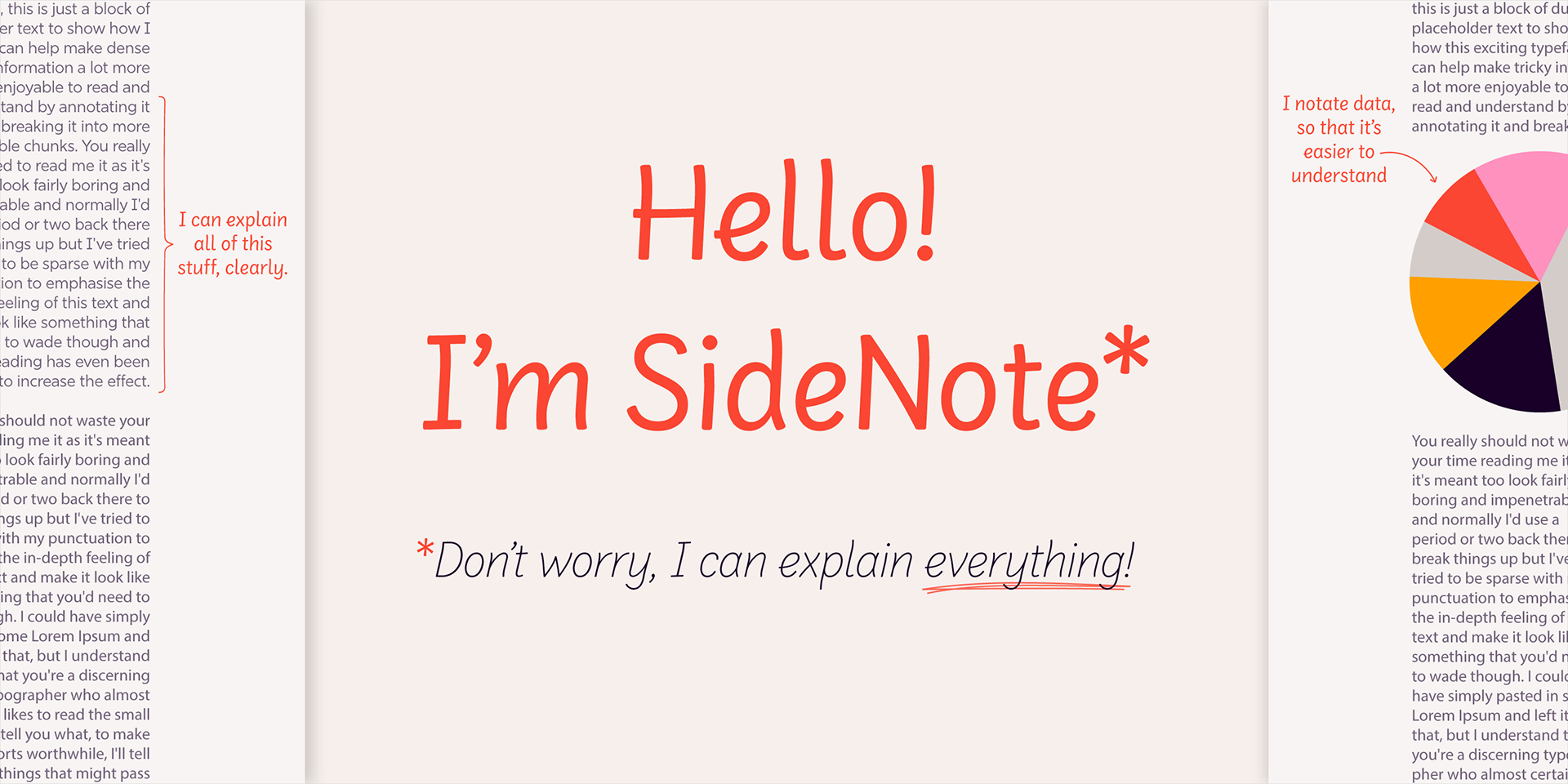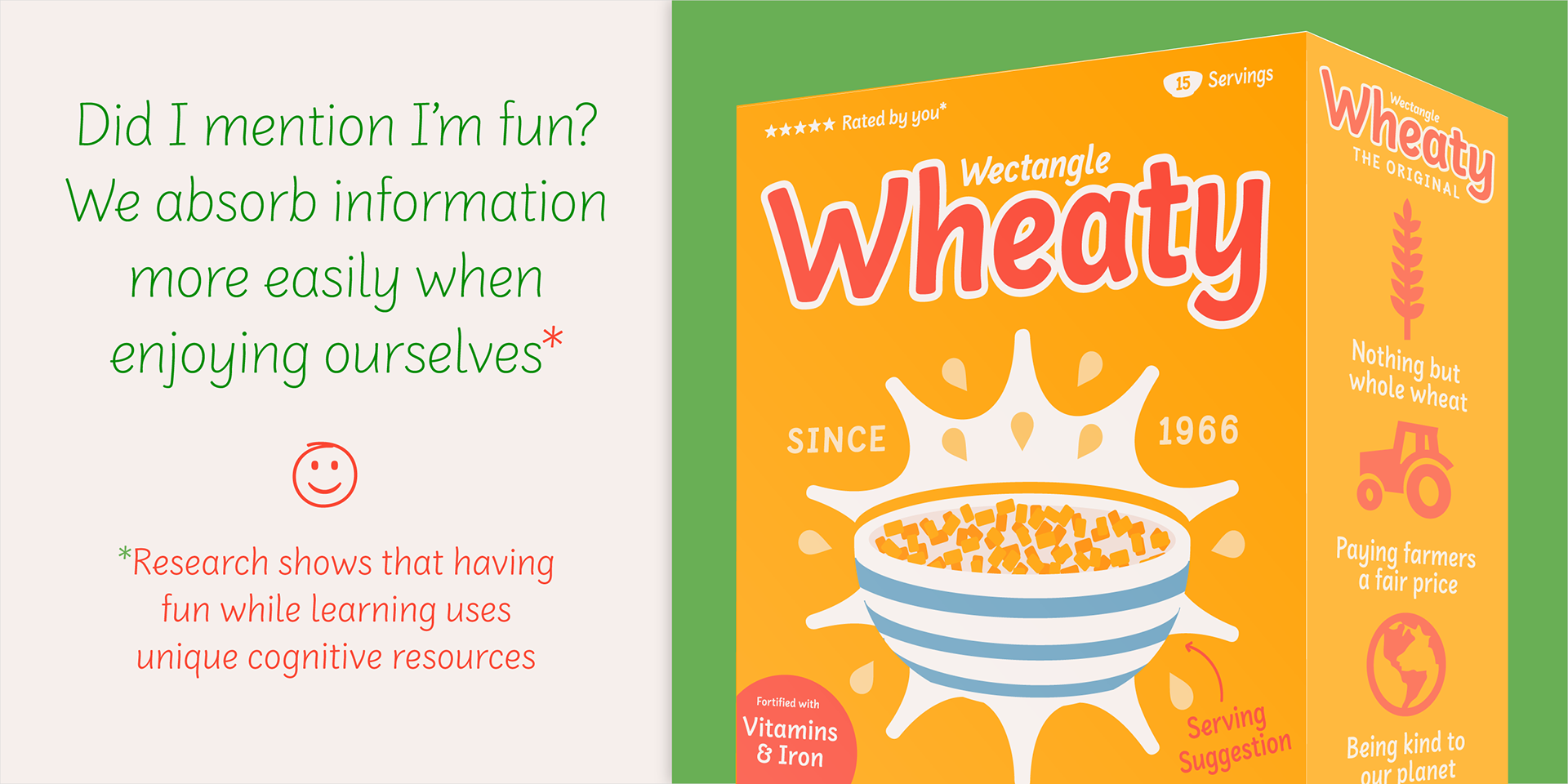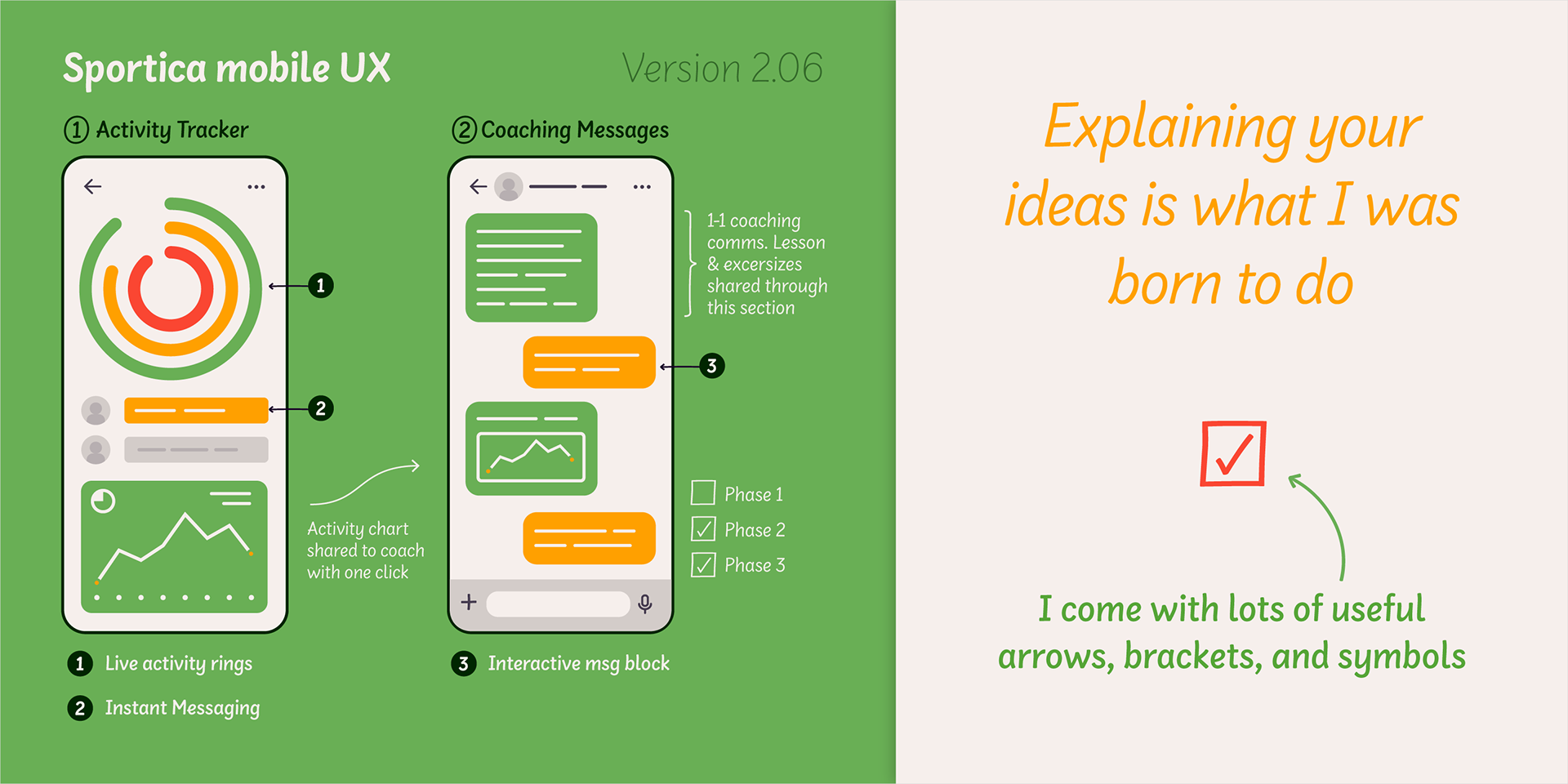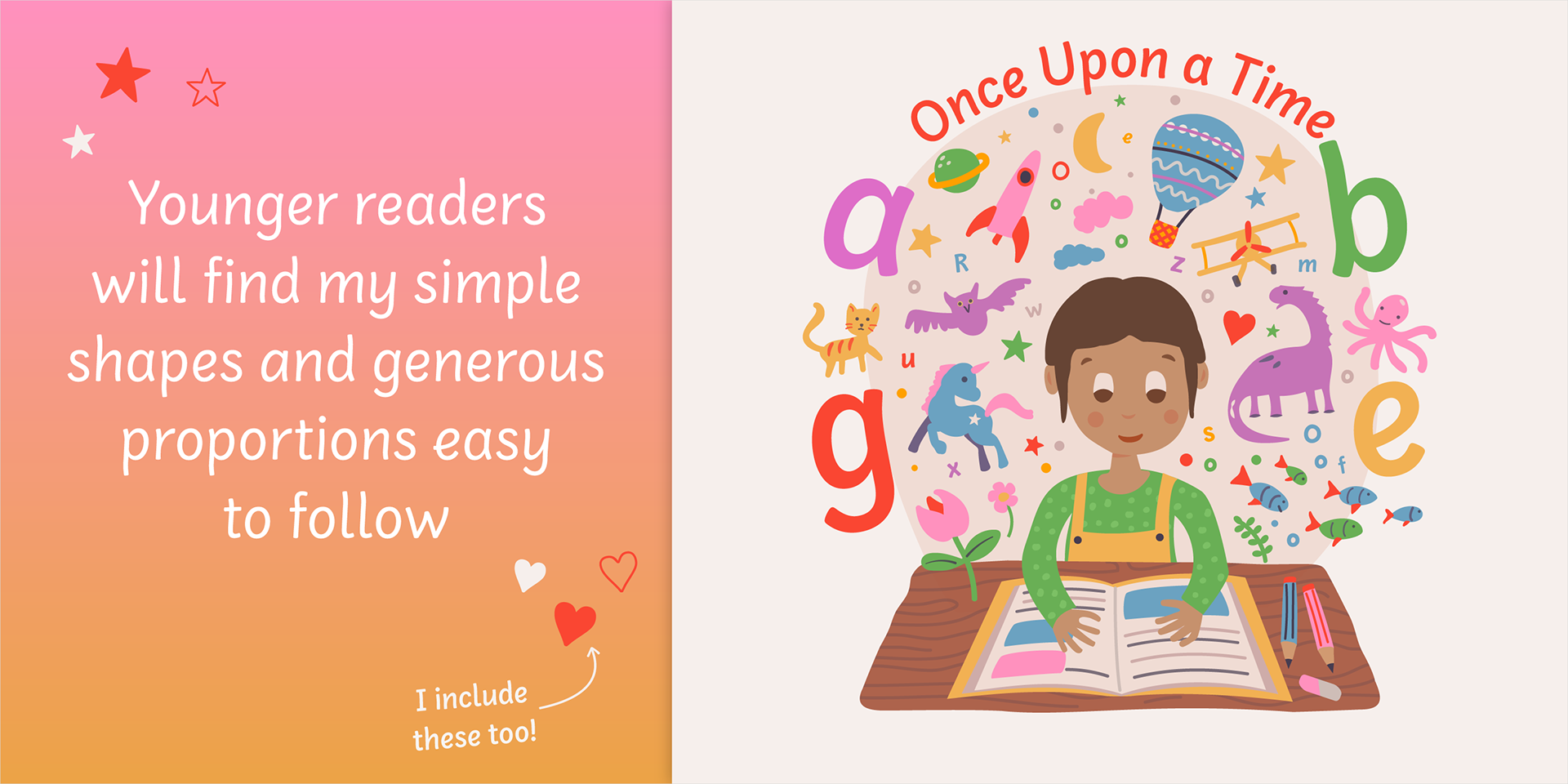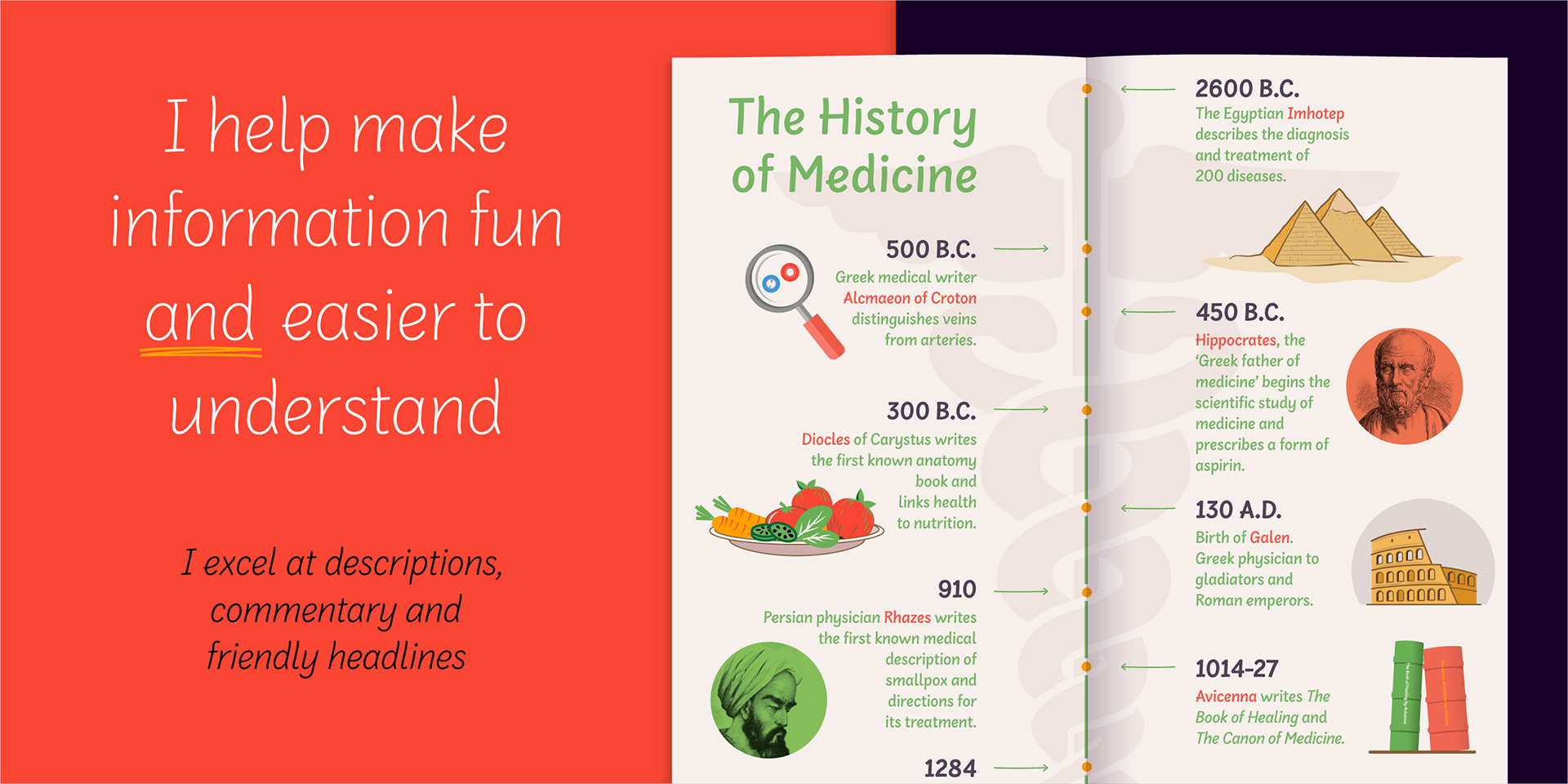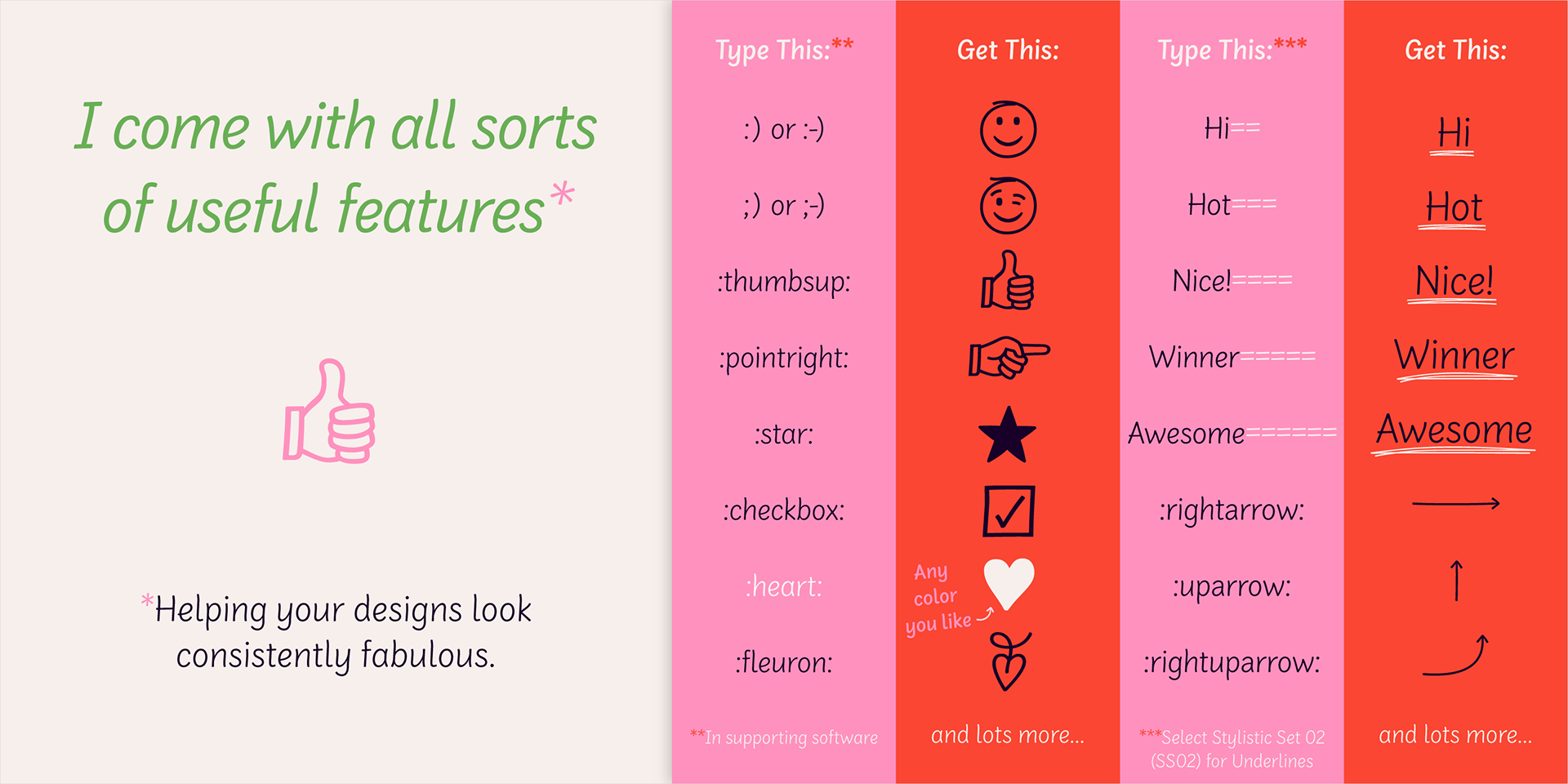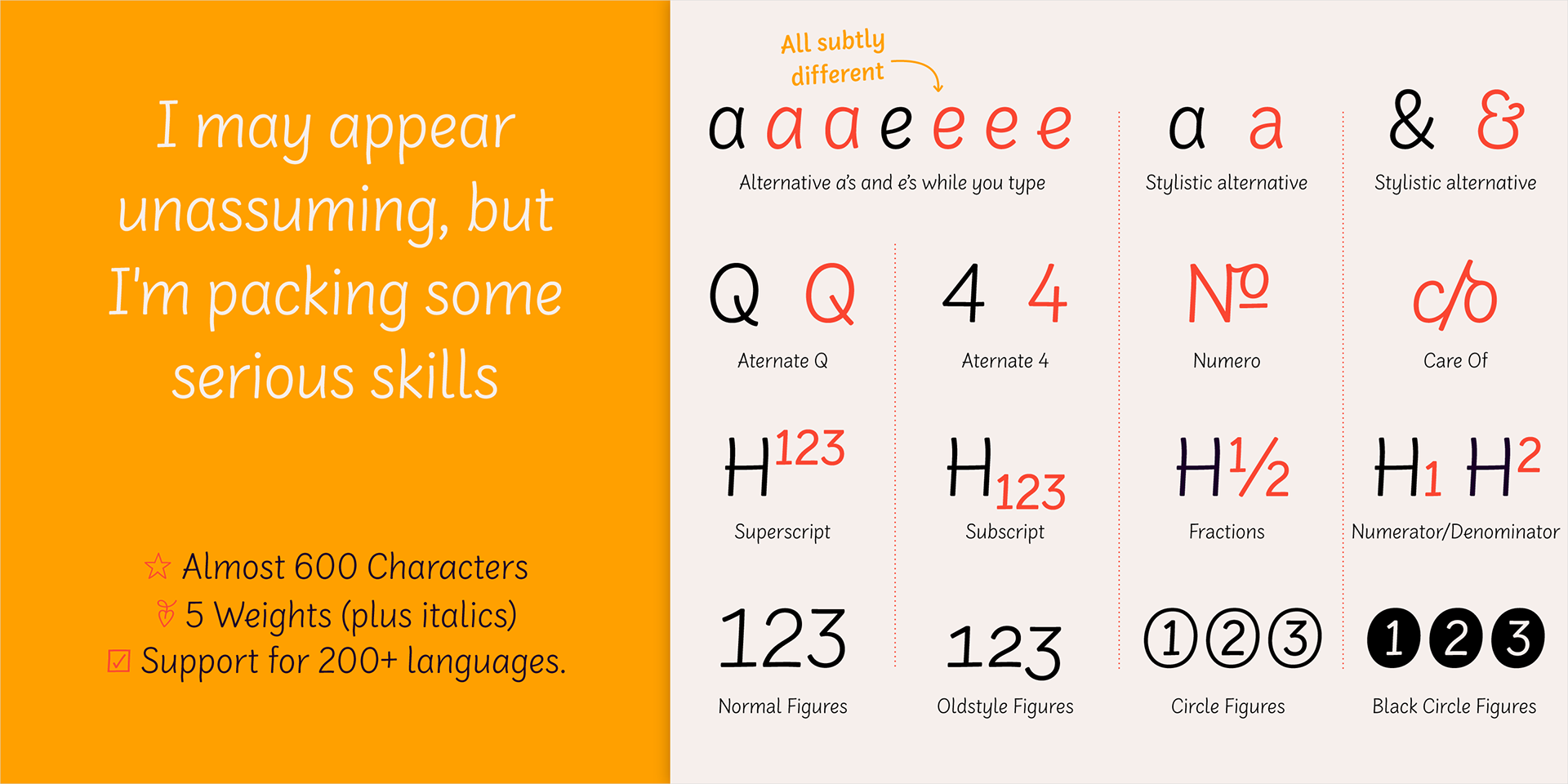
Hello! I’m SideNote. I specialize in annotations, headings and friendly dialogue.
I’m perfect for descriptions and explanatory text. Use me to deliver tricky information in a helpful, reassuring manner.
I look friendly and relaxed but professional enough to make you look awesome. Think of me as your friendly assistant.
Whether you’re pulling some slides together or explaining your work, think of me as your friendly assistant
I come with all sorts of useful features, like emoji, arrows and underlines.